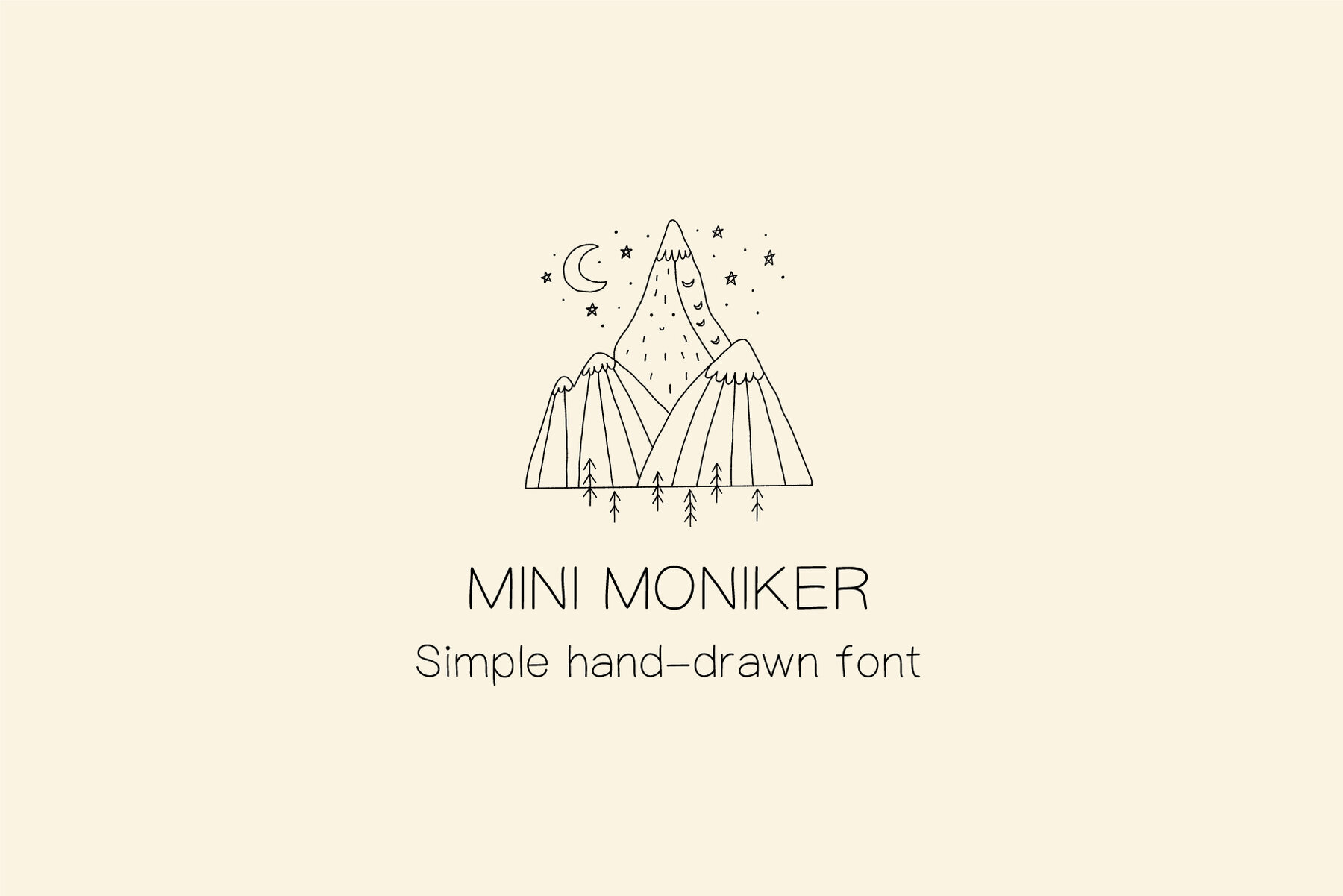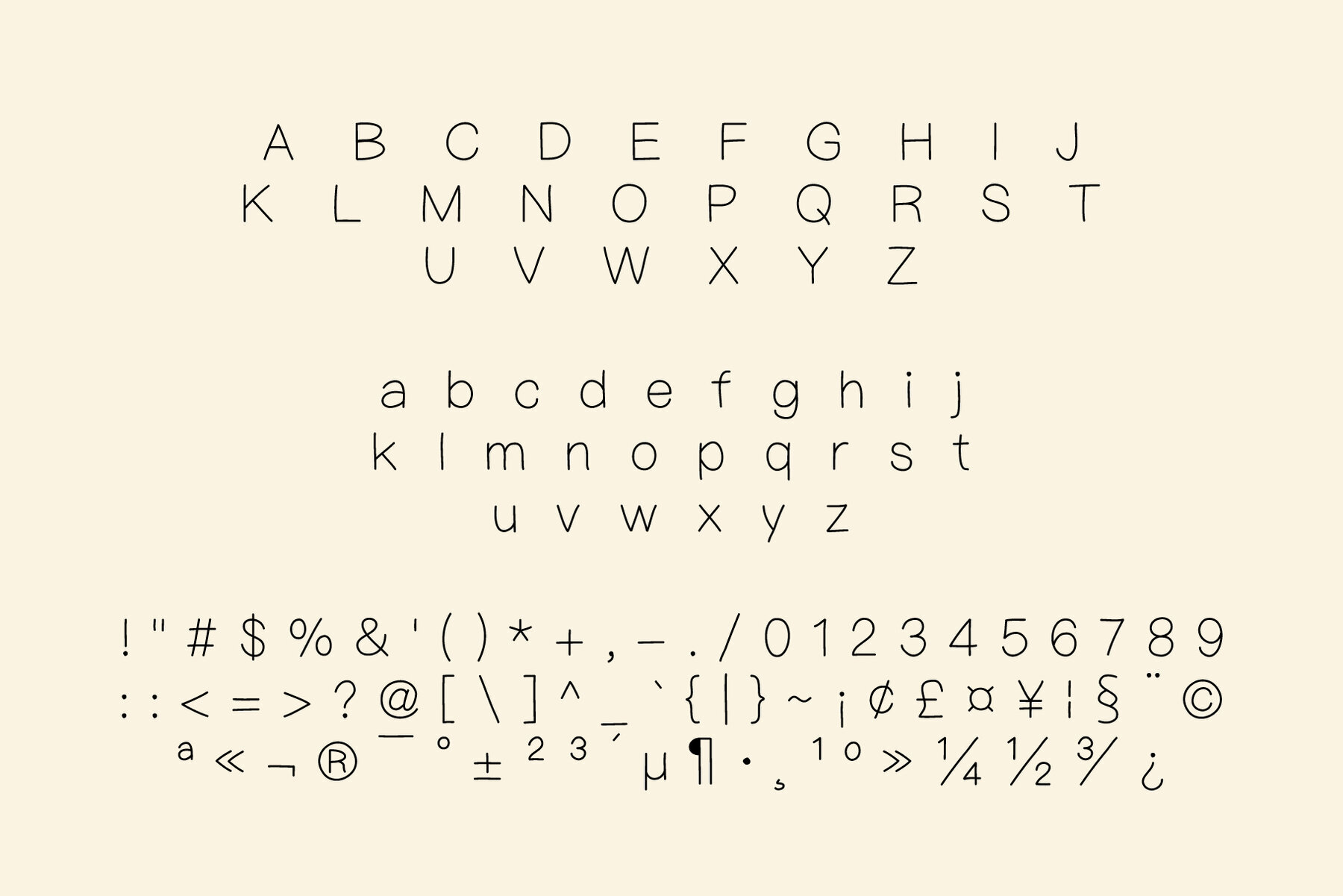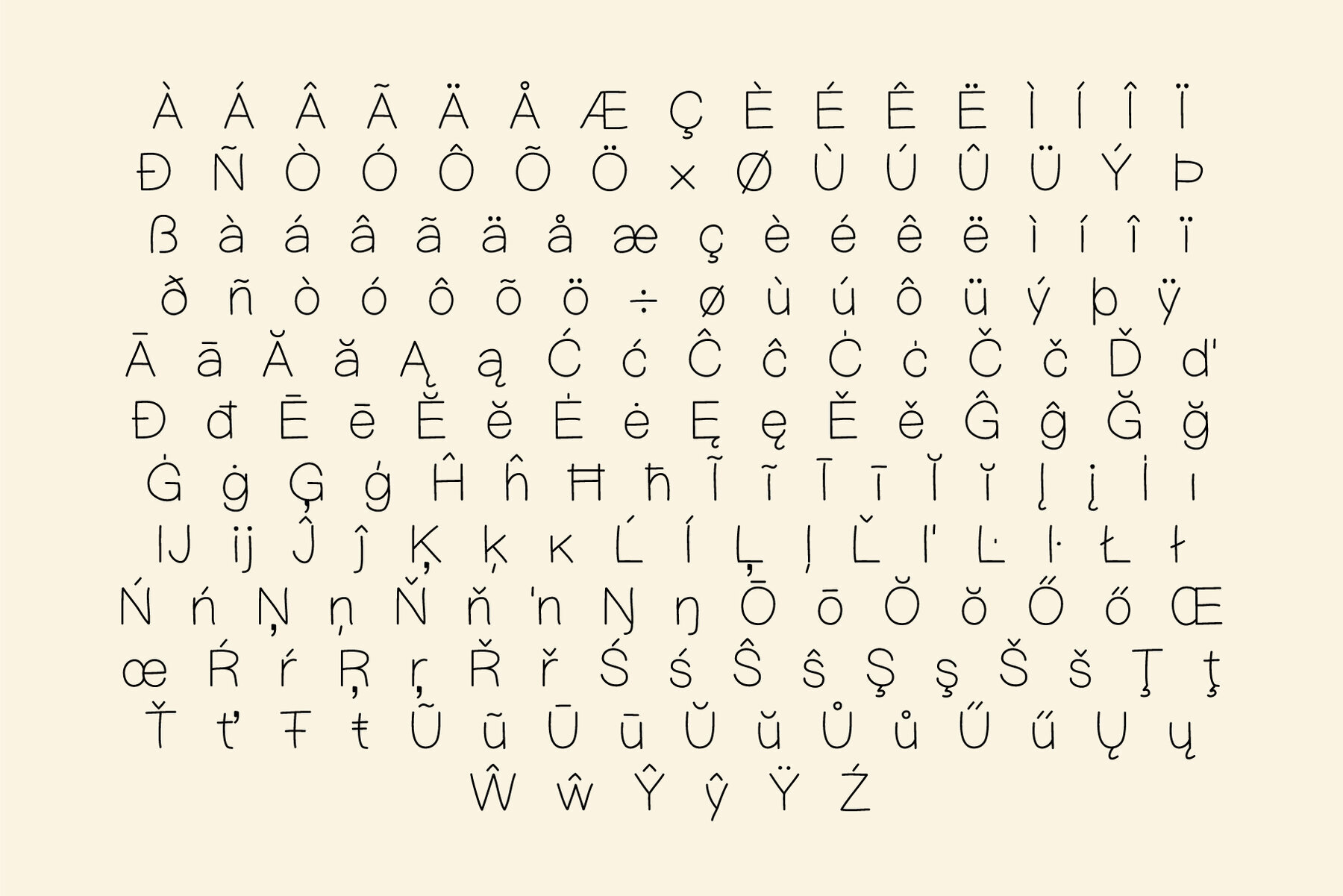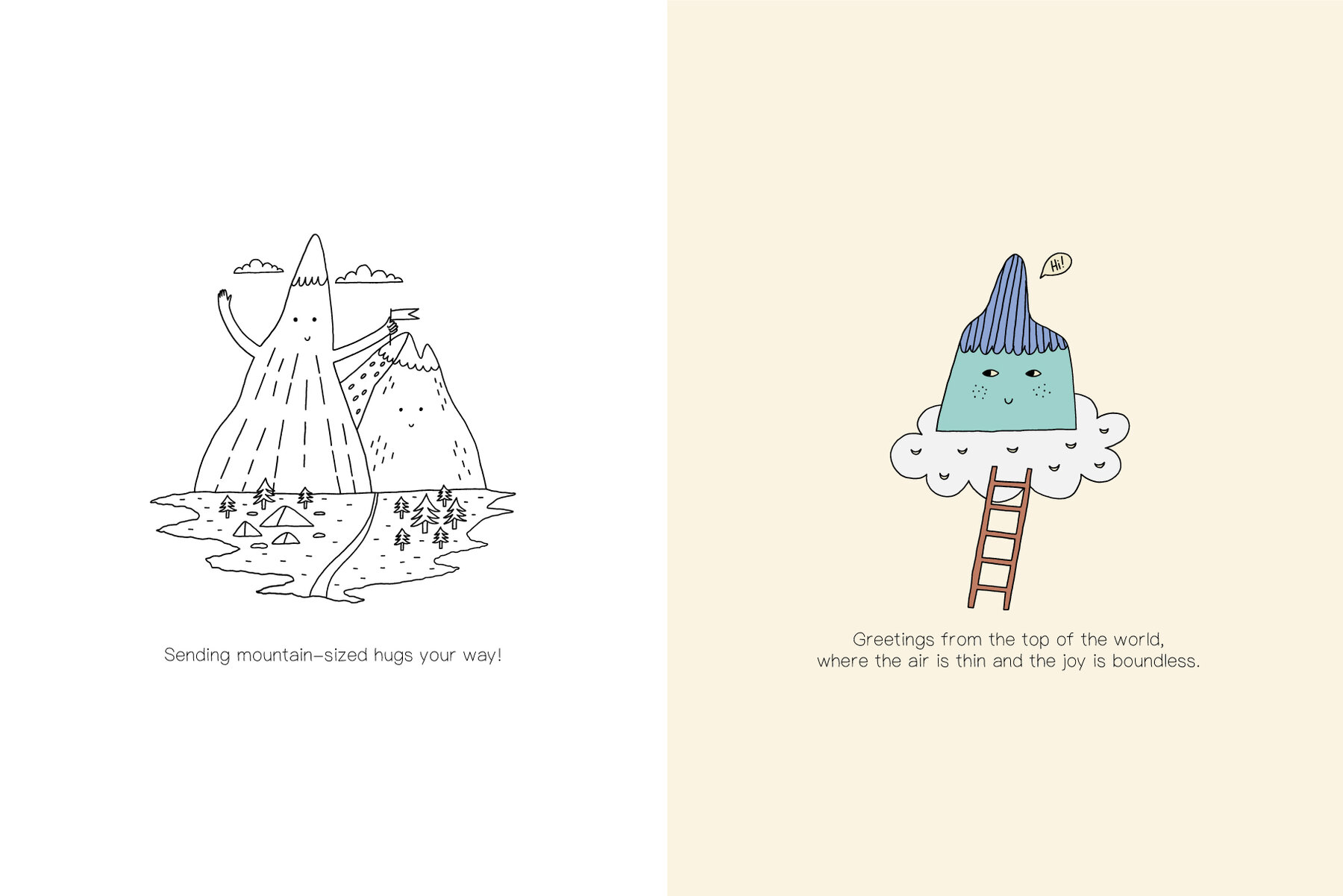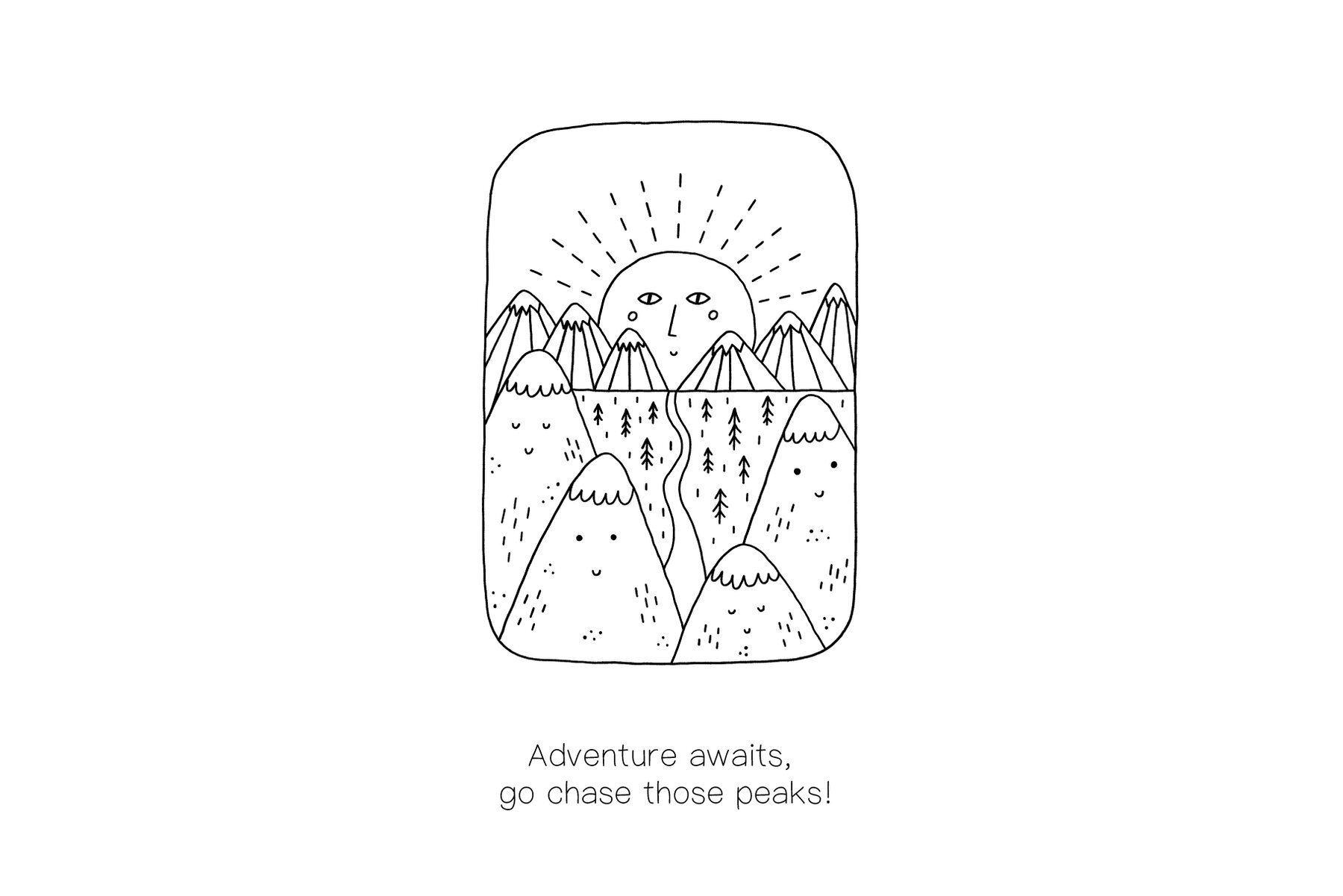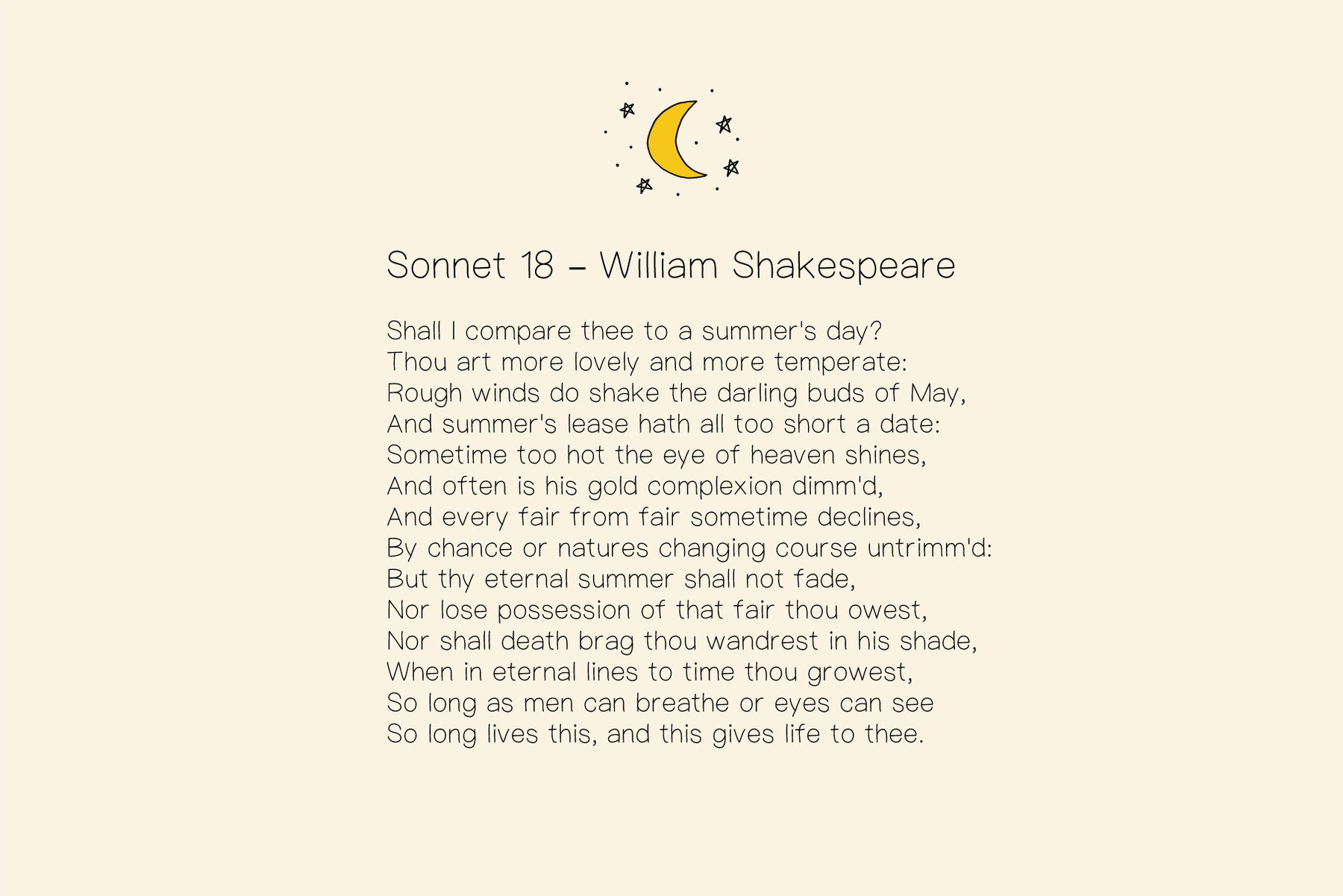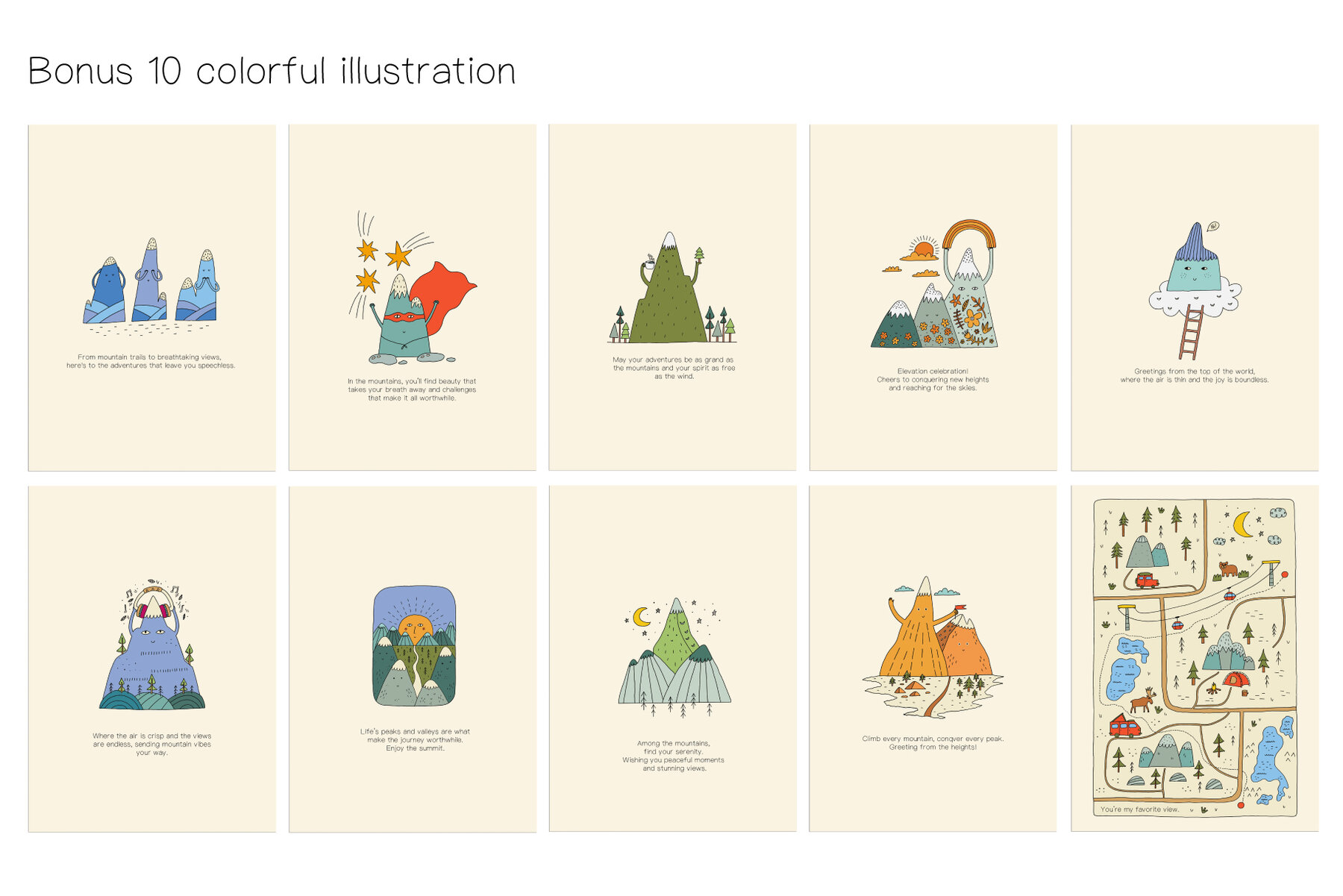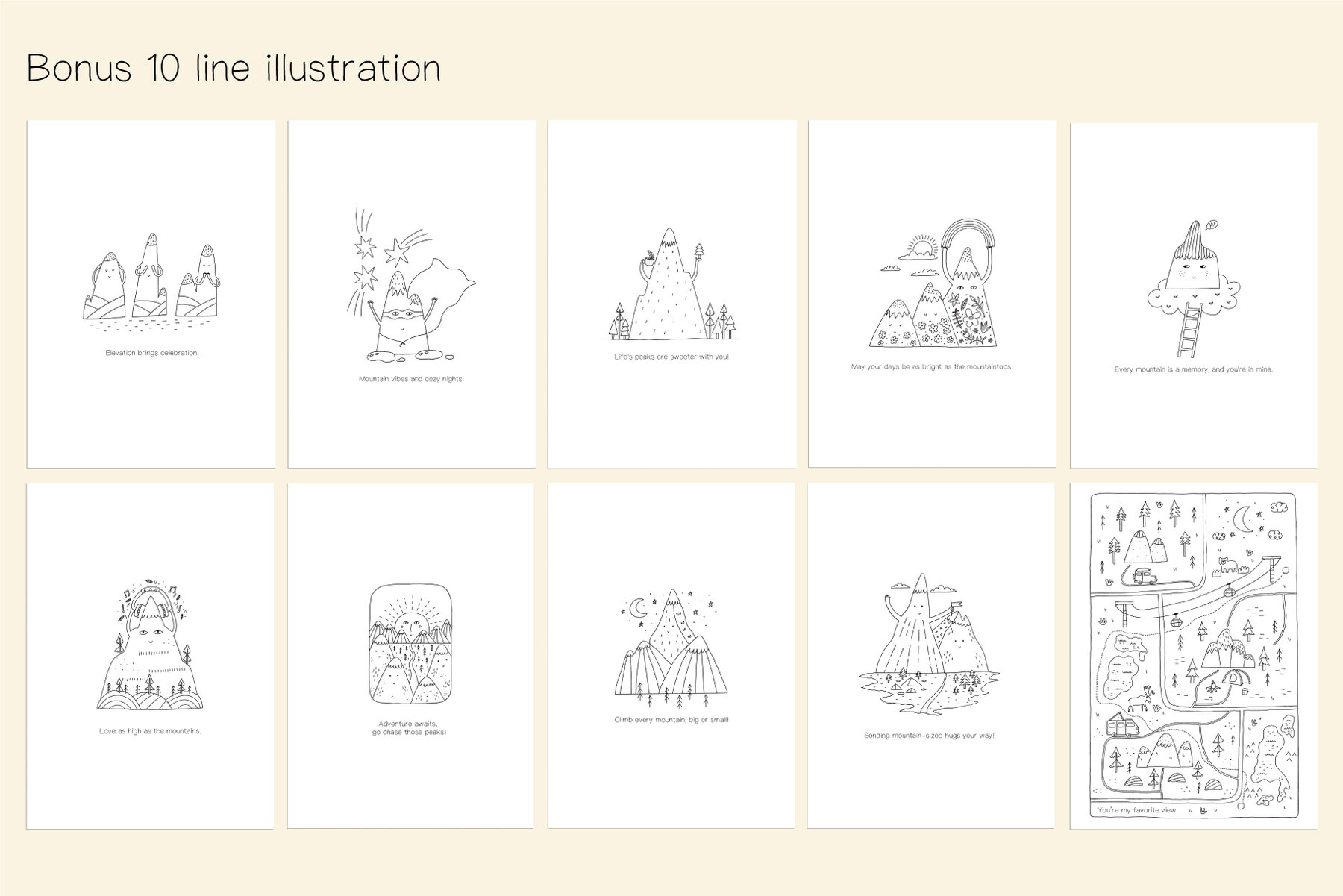
Mini Moniker Font
Elevate your design with Mini Moniker, a digital font that encapsulates the essence of minimalism. Perfectly suited for short phrases and print design, this font offers a clean and understated style for your creative projects. Each letter exemplifies beauty in simplicity, making Mini Moniker an ideal choice for a sleek, modern aesthetic. Enhance your visual communication with this versatile font and let your words convey clarity and elegance.Mini Moniker: Clean and Minimalist Font